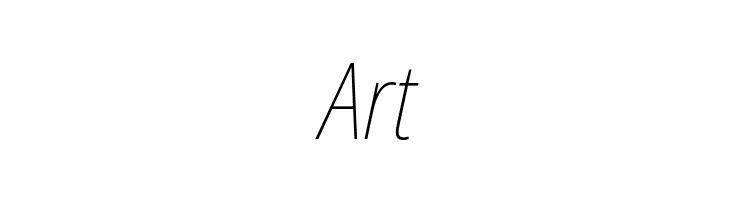
A sleek, thin, condensed sans-serif font with an elegant italic style.
A sleek, modern, and condensed italic font with a thin profile.
A thin, condensed, and modern font with high legibility.
A sleek, ultra-thin, extra condensed font with minimal contrast, ideal for modern design.
A thin, semi-condensed, modern typeface with clean lines and balanced spacing.
A thin, modern sans-serif font with clean lines and a minimalist style.
A modern, thin, condensed sans-serif font with a sleek and minimalistic design.
A modern, extra-condensed, thin sans-serif font with a minimalist design.
A modern, thin sans-serif font with a semi-condensed width, perfect for clean and minimalist designs.
A thin, modern sans-serif font with a clean and elegant design.